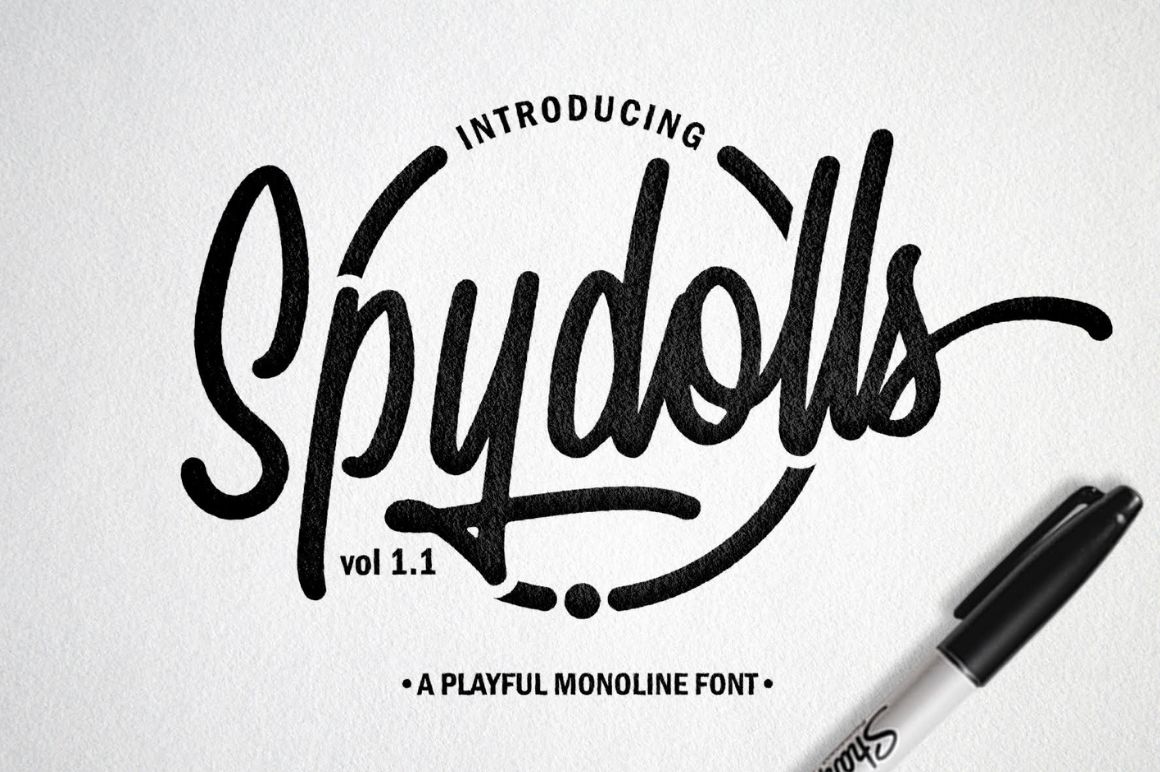
Spydolls Free Font
Spydolls is a playful monoline script font inspired by the handwriting of marker pen, highly recommended for your design projects. You can use it for – logo design, t-shirts, branding, prints, and a lot more.
Preview Of Spydolls Free Font:
Spydolls free font